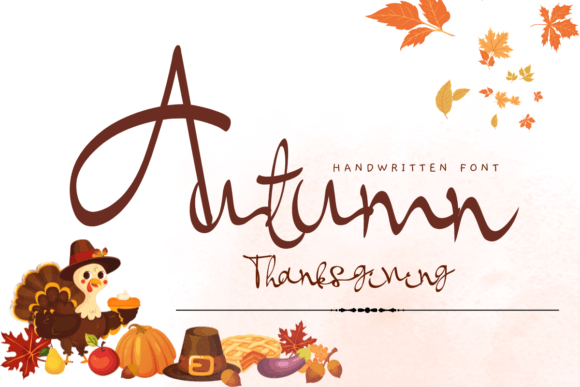
Cozy Up with Autumn Thanksgiving Font: A Designer’s New Best Friend
I’ll never forget the time I was working on a project for a client’s Thanksgiving-themed party invitation. I had all the design elements ready – the warm color palette, the fall leaves, and the cute illustrations – but something was missing. The font I was using just didn’t feel right. It was too formal, too generic, and totally not autumnal enough. That’s when I stumbled upon the Autumn Thanksgiving Font, and let me tell you, it was love at first sight! ✨
An Honest Review: The Good, the Great, and the Quirky
So, what makes Autumn Thanksgiving Font so special? Here are the things I love:
• It’s handwritten, which gives it a warm, cozy feel that’s perfect for fall and Thanksgiving designs. ❤️
• The font is versatile and can be used for a variety of projects, from notes and diaries to greeting cards and social media posts. 📝
• It’s easy to read, even in smaller sizes, which makes it perfect for designs with lots of text. ✅
• The font has a lovely, organic feel that makes it perfect for designs that need a personal touch. ✨
Of course, no font is perfect, and Autumn Thanksgiving Font has a few quirks:
• Some of the letters are a bit quirky and might not work well in very formal designs. 🤔
• The font doesn’t have a huge range of weights, which might limit its use in certain designs. ⚠️
The Story Behind Autumn Thanksgiving Font
Autumn Thanksgiving Font was designed by a talented typographer who wanted to capture the warm, cozy feel of fall. The font is inspired by traditional handwritten scripts, but with a modern twist that makes it perfect for digital designs. Whether you’re a designer, a crafter, or just a creative hobbyist, Autumn Thanksgiving Font is sure to become a favorite in your toolkit.
Q: Is Autumn Thanksgiving Font suitable for children? A: Yes, Autumn Thanksgiving Font is a friendly, approachable font that’s suitable for designs intended for children.